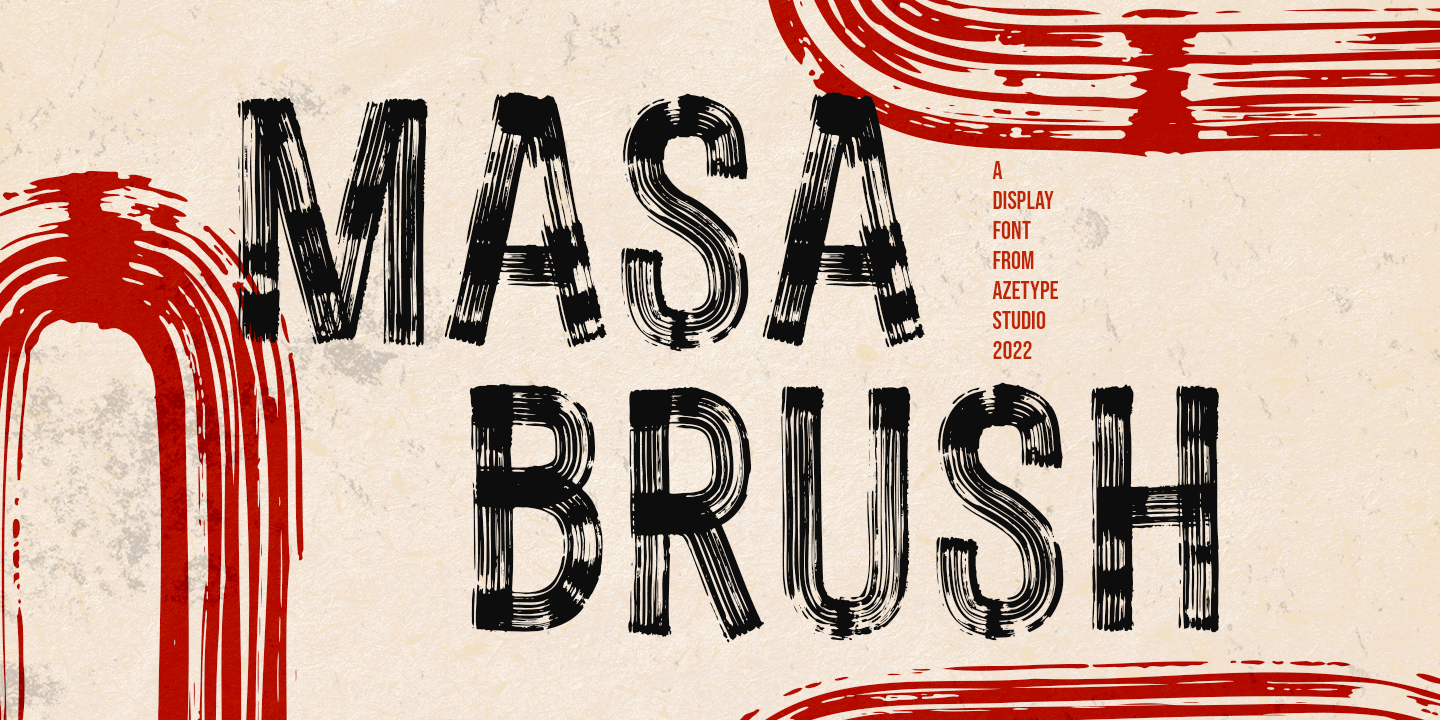
Unleash raw creative energy with Masa Brush Font Free Download – a dynamic hand-brushed typeface that captures the spontaneous spirit of street art and Japanese calligraphy. This bold, expressive font features authentic ink textures and energetic strokes, perfect for projects demanding urban edge or artistic authenticity.
Why Masa Brush Font Stands Out
Masa Brush Font Free Download delivers:
Genuine hand-painted letterforms
Visible brush texture and ink variations
Perfect balance of chaos and control
Versatile applications from grunge to luxury
Masa Brush Font Free Download Technical Features:
Uppercase and lowercase characters
Includes texture overlay variants
Expressive Applications:
Streetwear branding
Music/album artwork
Restaurant menus
Sportswear graphics
Artistic book covers
Artist Tip: Vary your letter spacing and rotation slightly to enhance the hand-painted effect!